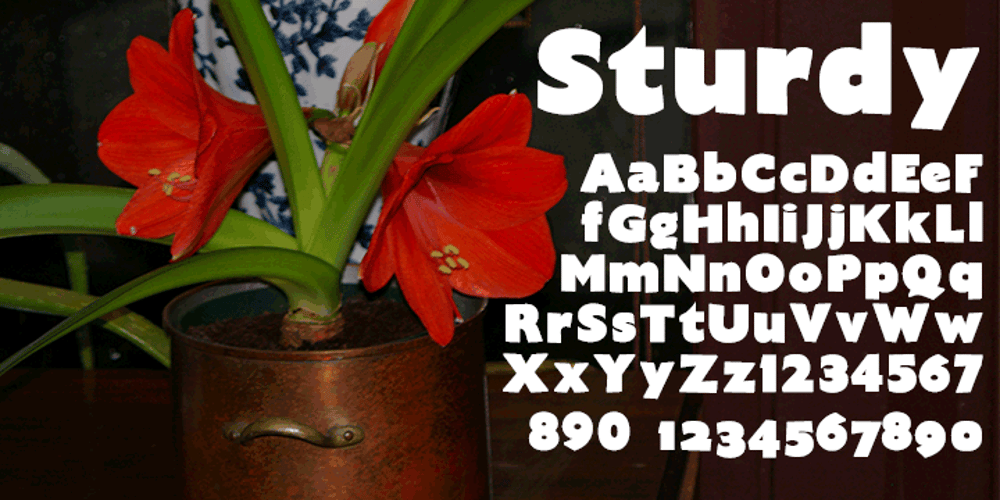
Sturdy
Sturdy font
Sturdy Font Family was designed by David Bergsland and published by Hackberry Font Foundry. Sturdy contains 1 styles and family package options. Sturdy is designed to be as black as possible yet still legible. As an OpenType Pro font it has my normal complement of around 500 characters. New to this font I have added what I call ordinals: first through tenth in addition to Caps, lowercase, small caps, lining, oldstyle, and small caps figures, ligatures, and so on.